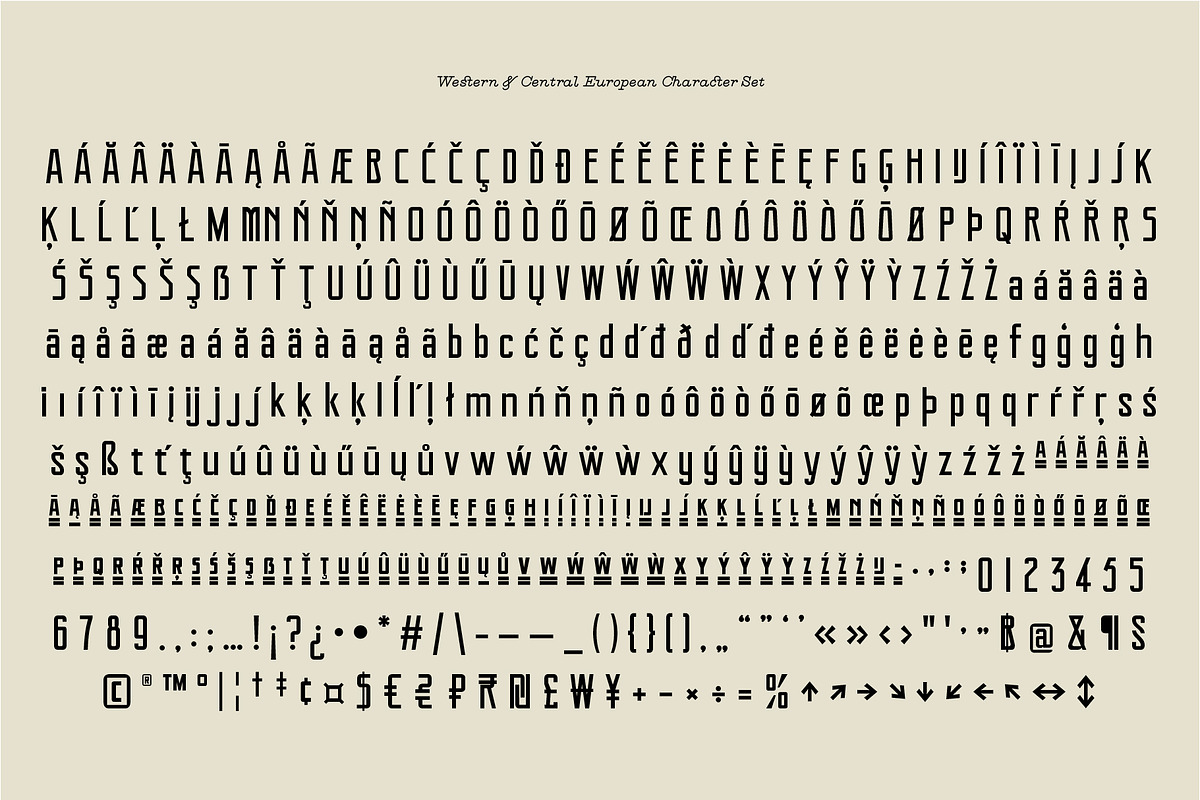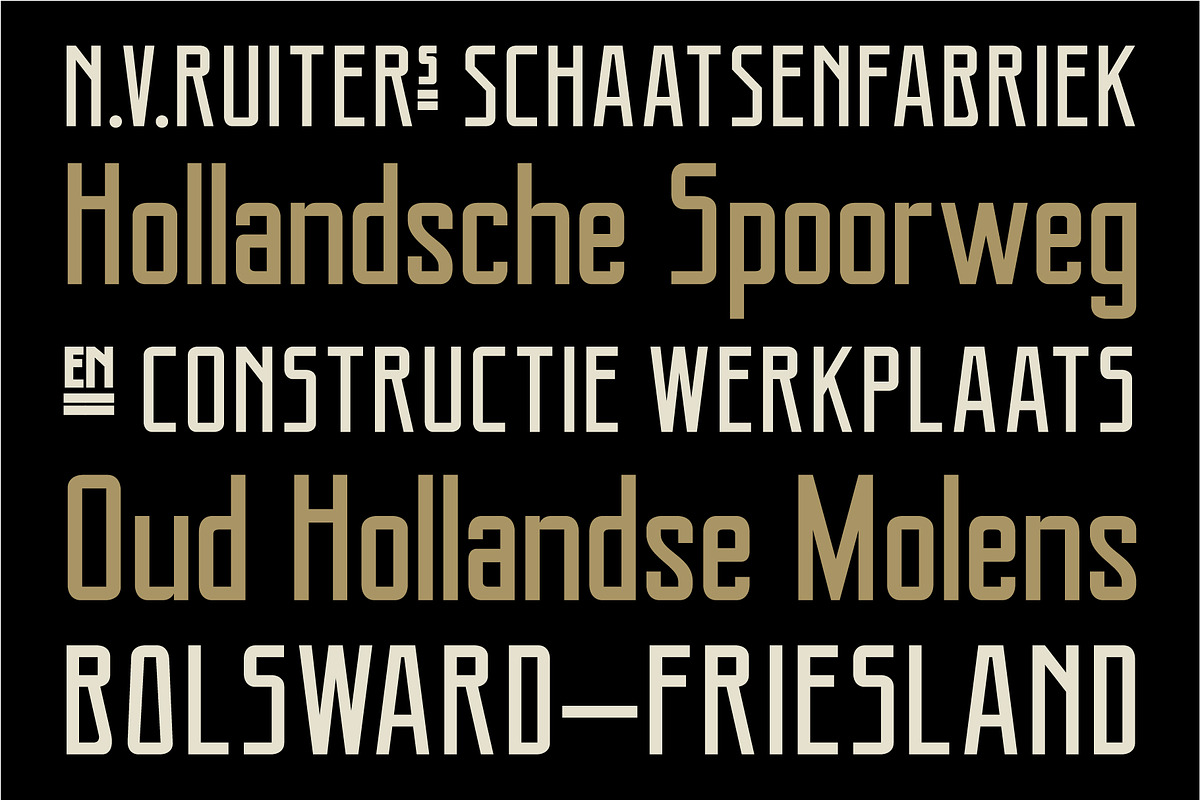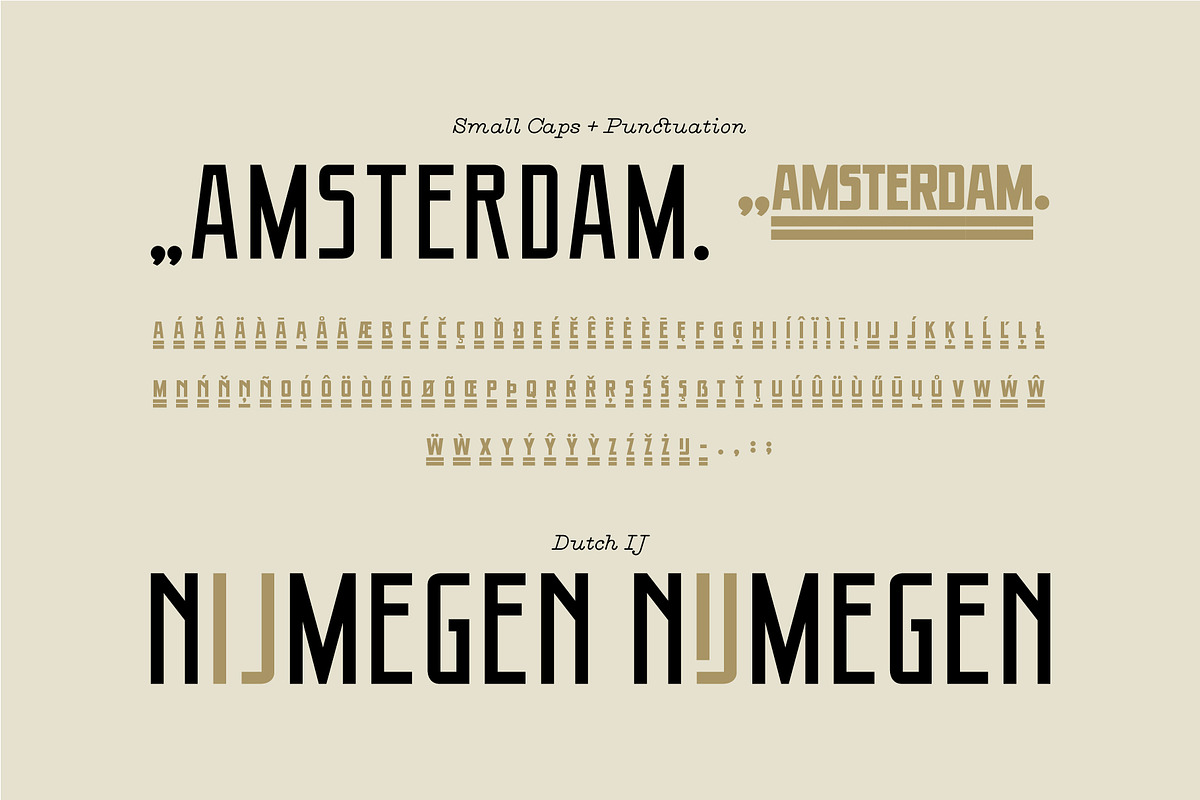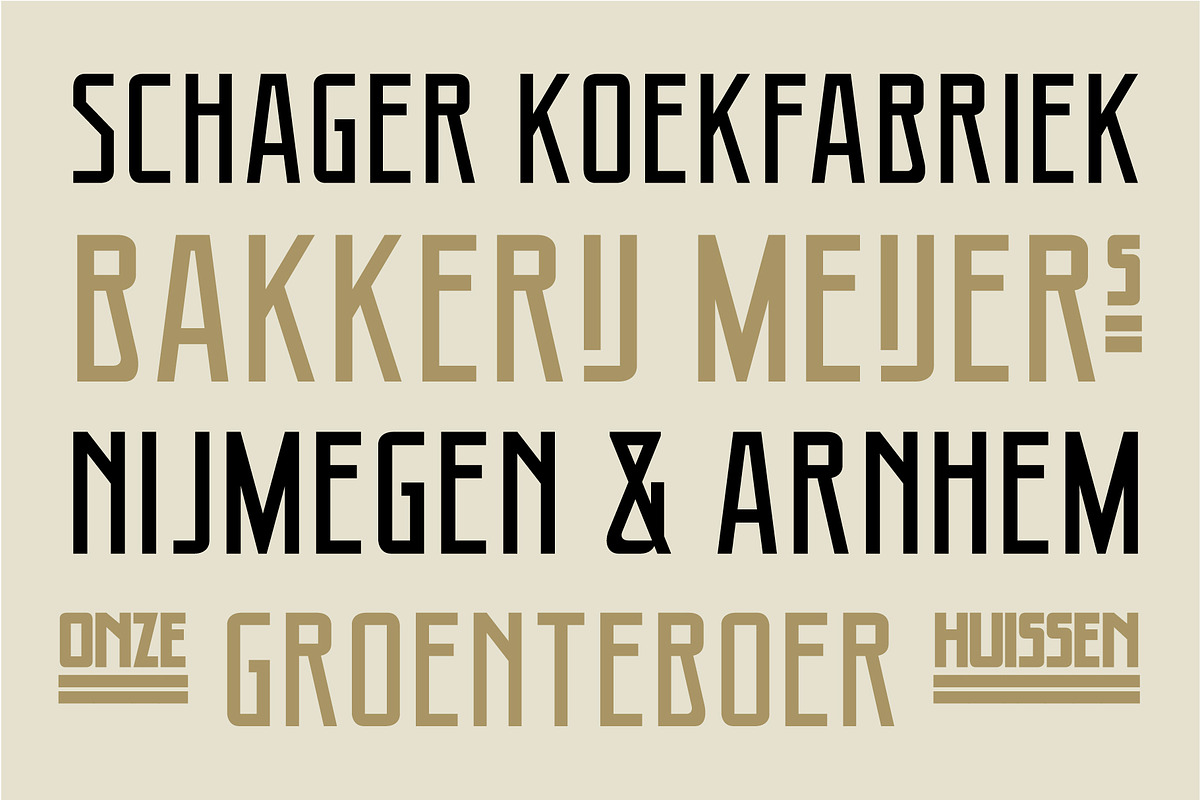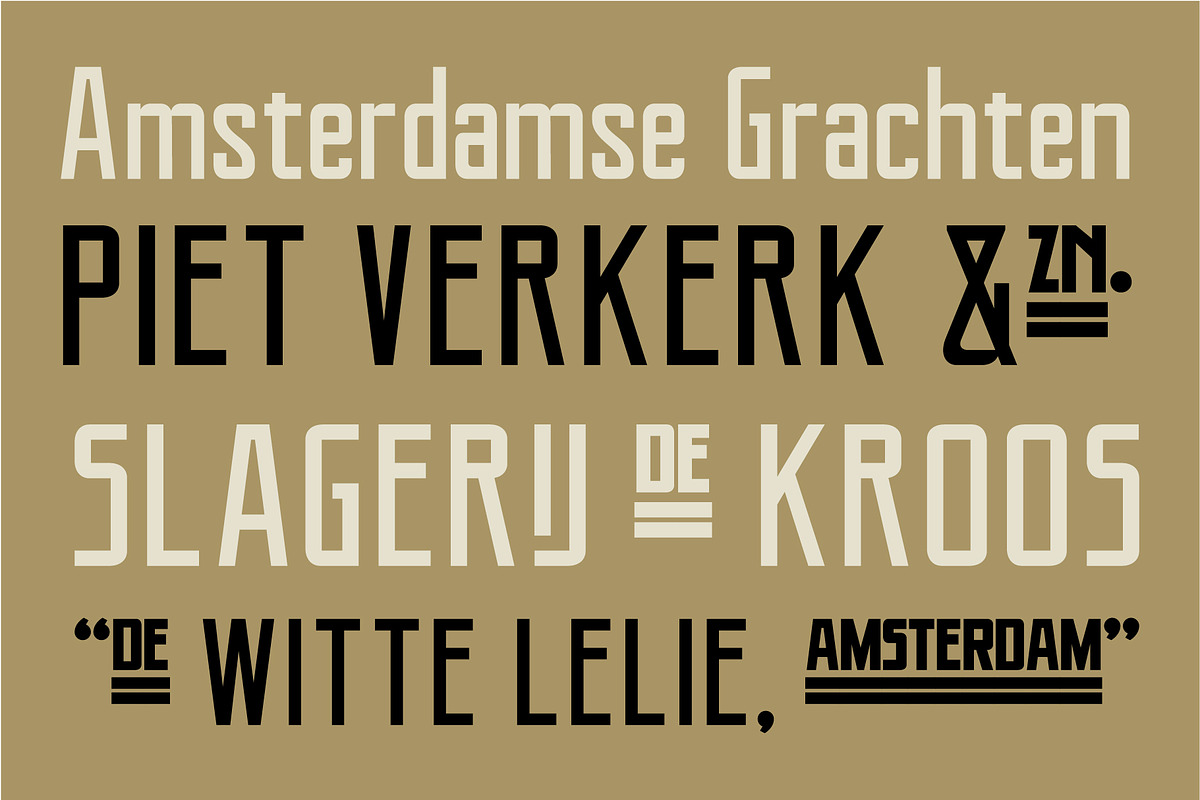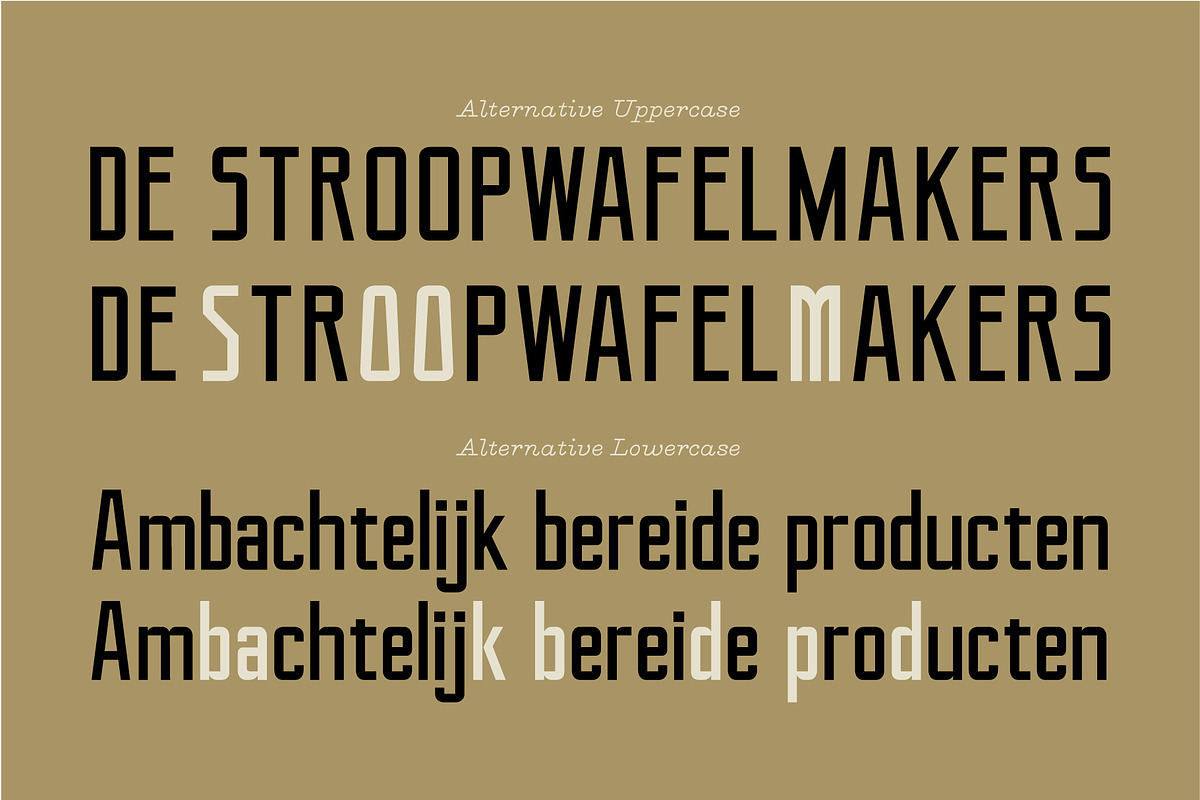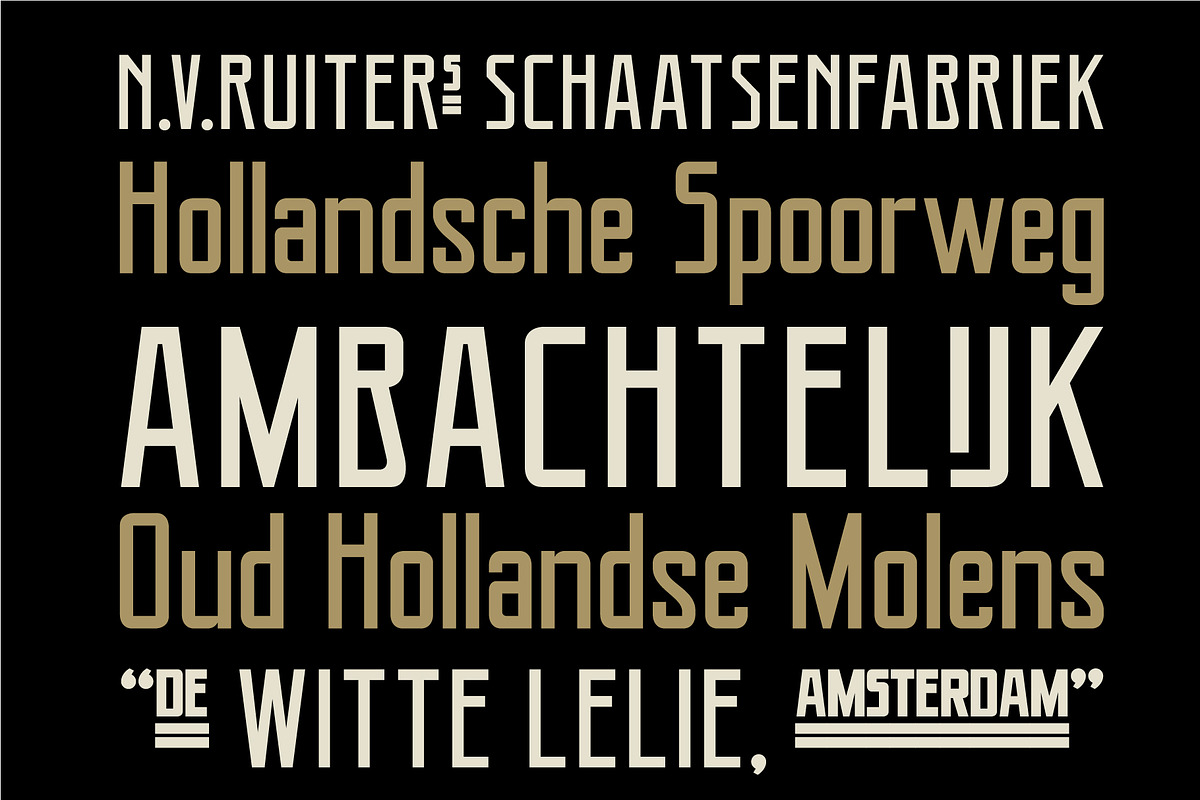
Ambachtelijk
This vintage Ambachtelijk inspired font bundle was created, using a 1930 Frysian ad for ice skates as inspiration. It can be used for modern and authentic designs.